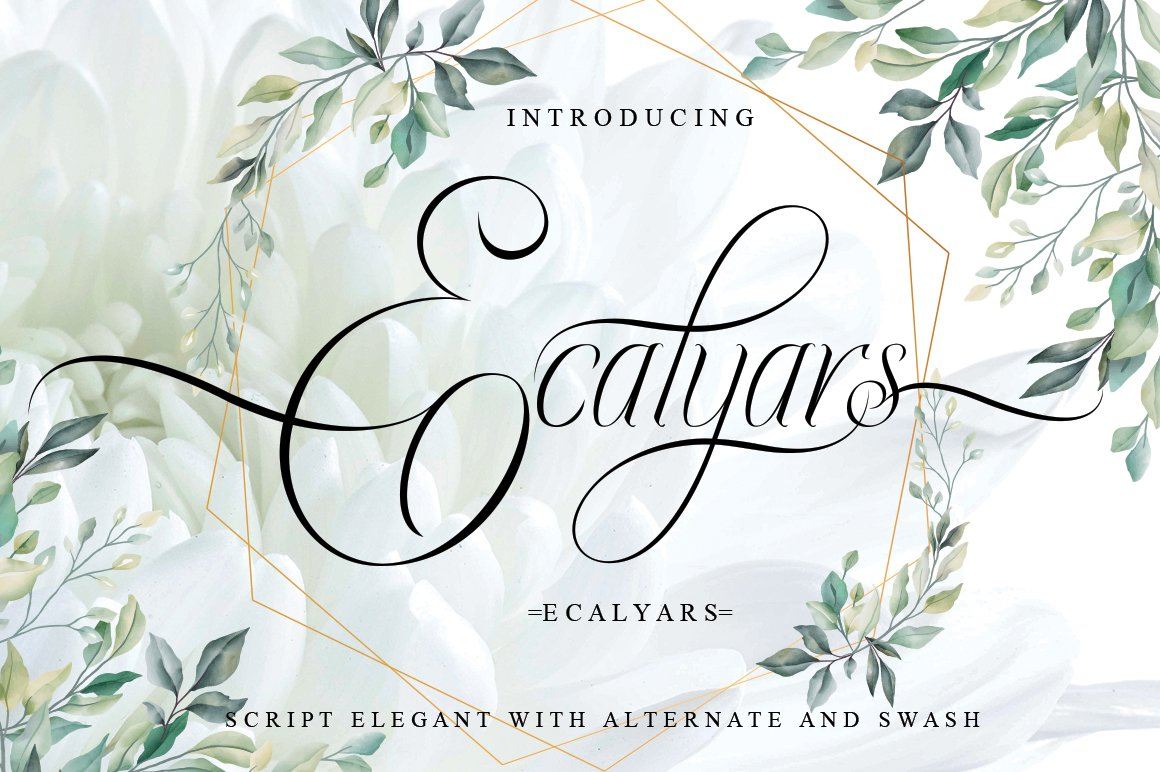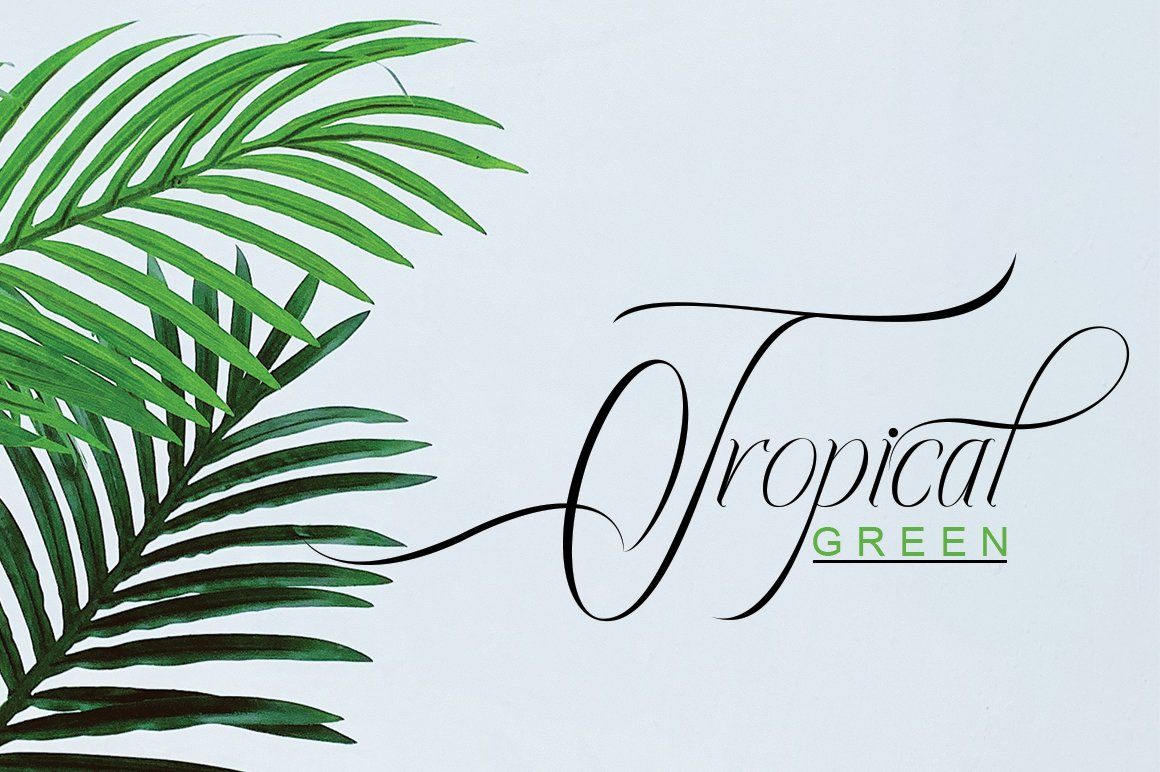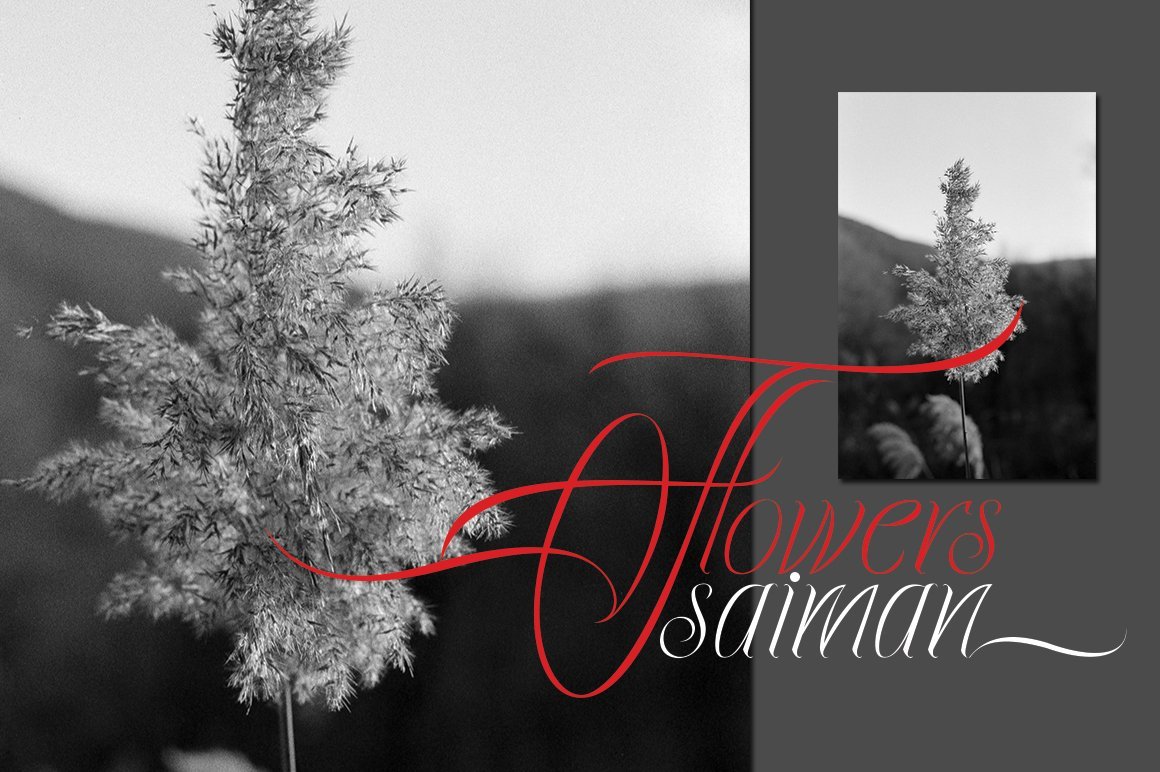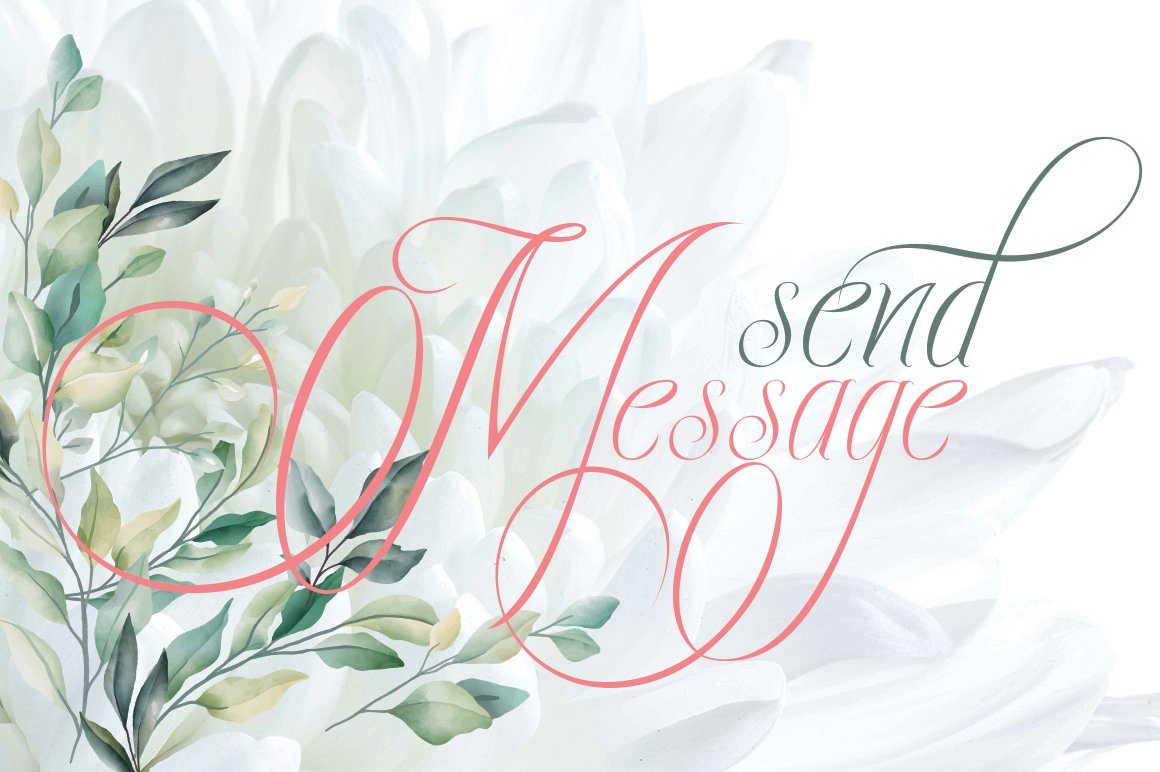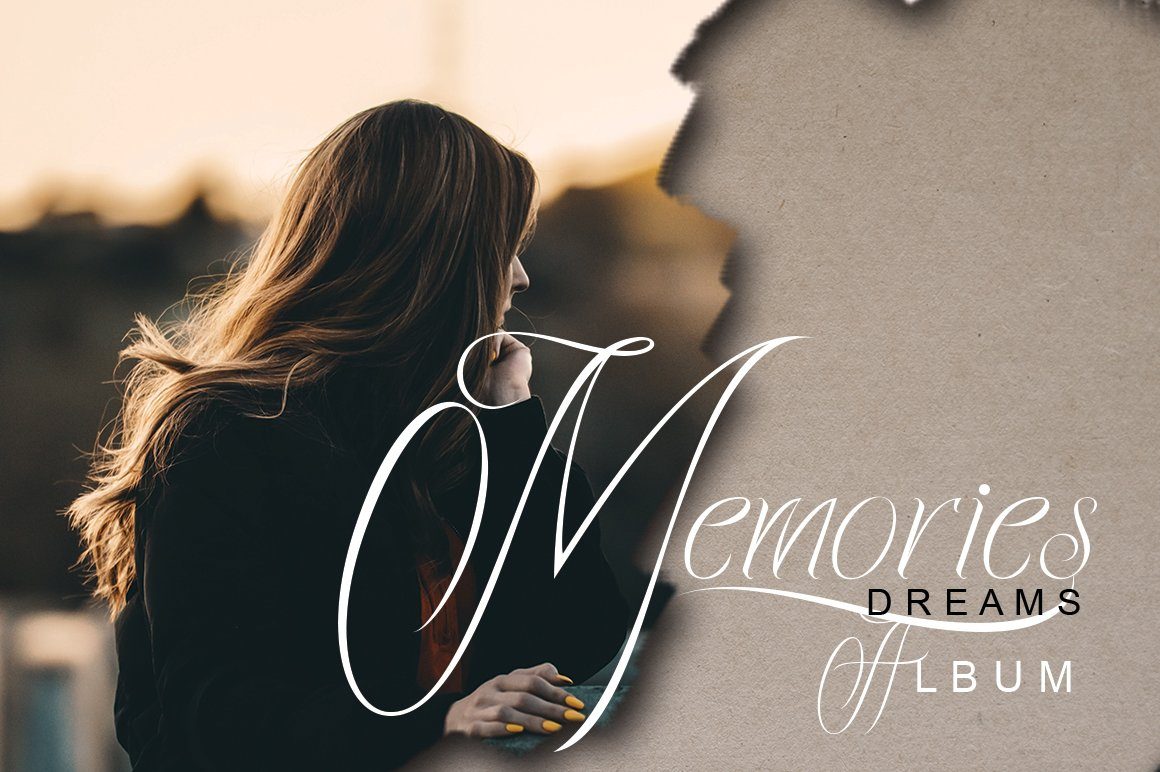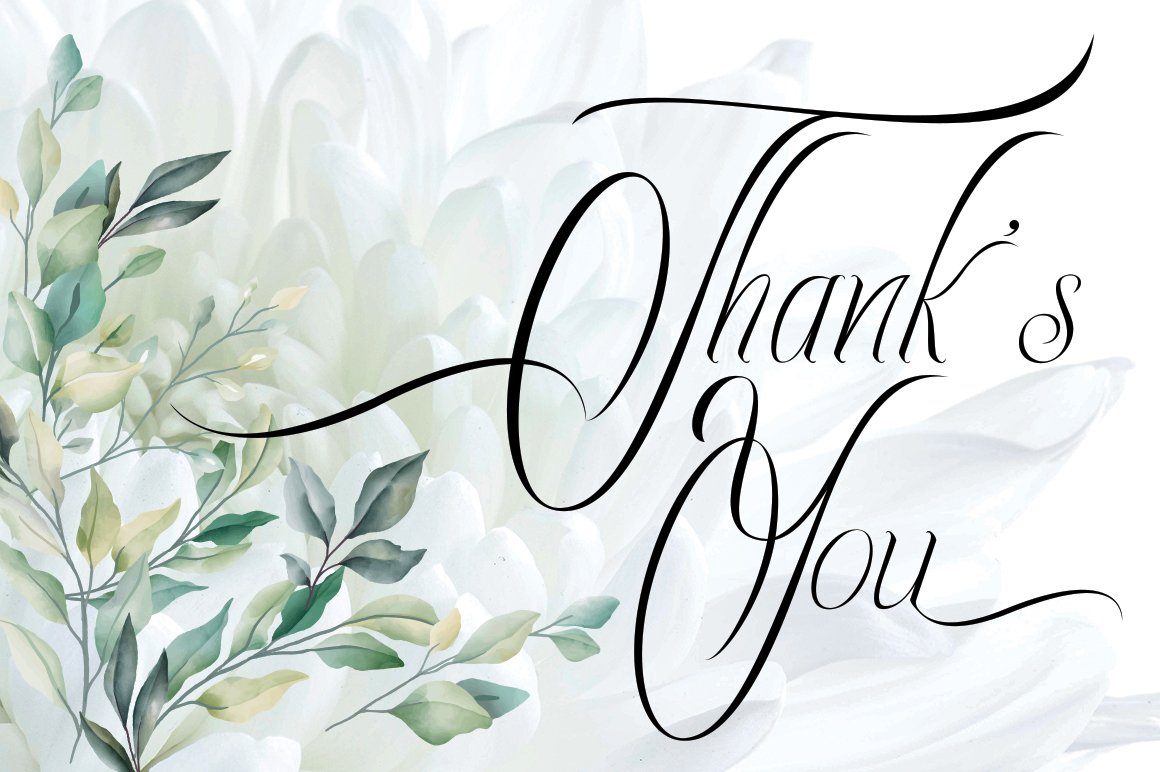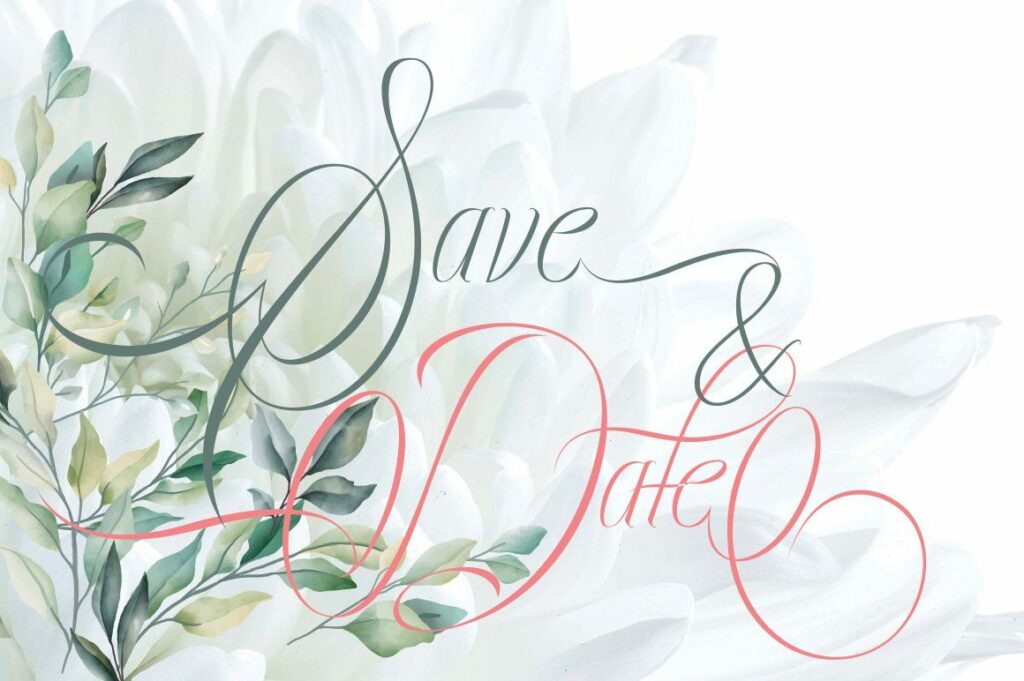
HomeScript FontsEcalyars Script Fonts Ecalyars FacebookXPinterestWhatsApp 1 of 7 ... ... ... ... ... ... ... About Ecalyars ttf i nclude : smoth cute font chaliggraphy Ecalyars ttf Ecalyars otf alternate,punktuation numeric kind regard JH-creativefont DOWNLOAD NOW People also explored Sandrina Font Smitson Font Minimalike Font Honiebi Font The Crafter Font Insidious Magna Font Love Today Font Qiara Duo Font Goniec 485 0 TagsEcalyars Previous articleShalmaNext articleJulia Swanliya LEAVE A REPLY Cancel reply Comment: Please enter your comment! Name:* Please enter your name here Email:* You have entered an incorrect email address! Please enter your email address here Website: Save my name, email, and website in this browser for the next time I comment. Personal Use Free The Quick Personal Use Free Read more about this font Black Personal Use Free Read more about this font Child Witch Personal Use Free Read more about this font Hunters Personal Use Free Read more about this font BLOG Elegant Wedding Invitation Fonts – Handwritten & Script Fonts Elegant Wedding Invitation Fonts Your wedding day is one of the most important moments of your life, and every detail matters—including your invitation design. Our... Where to Buy American Fonts Online in 2024 How to Cut Any Font on Cricut: Convert a Font to SVG (Free) Transform Your Website: Elevate Your Typography with 7 Best Web Font Generators